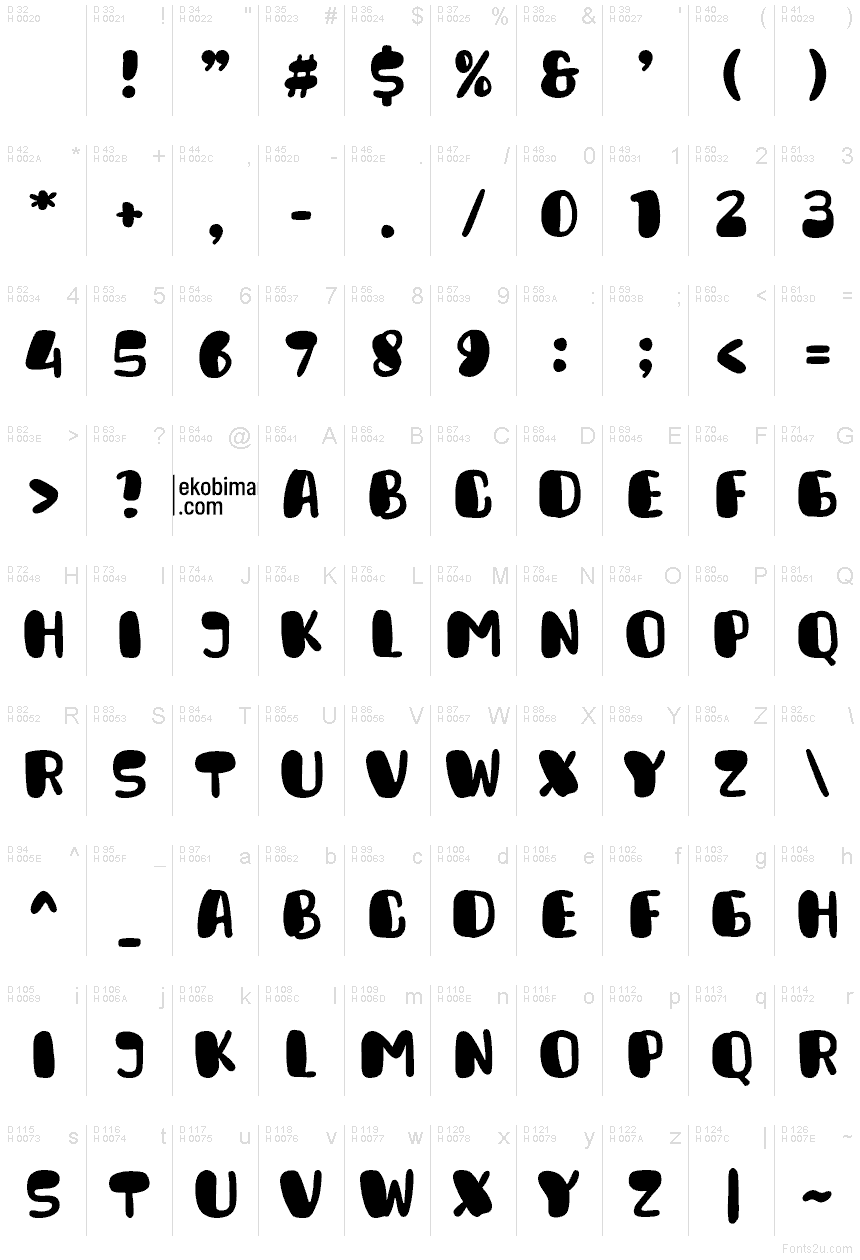
Daily Croquete
Daily Croquete font by Eko Bimantara is a bold comic display typeface with solid and thick bodies. It has a playful and friendly design with an informal vibe. The font gives off a retro style aura which makes it pleasant to look at in small amounts of text.
Free for personal use, Daily Croquete can be used in headlines, posters, games, screens, comics, books, or even editorials. Advertisements to promote brands would be just as delightful when designed using this typeface.